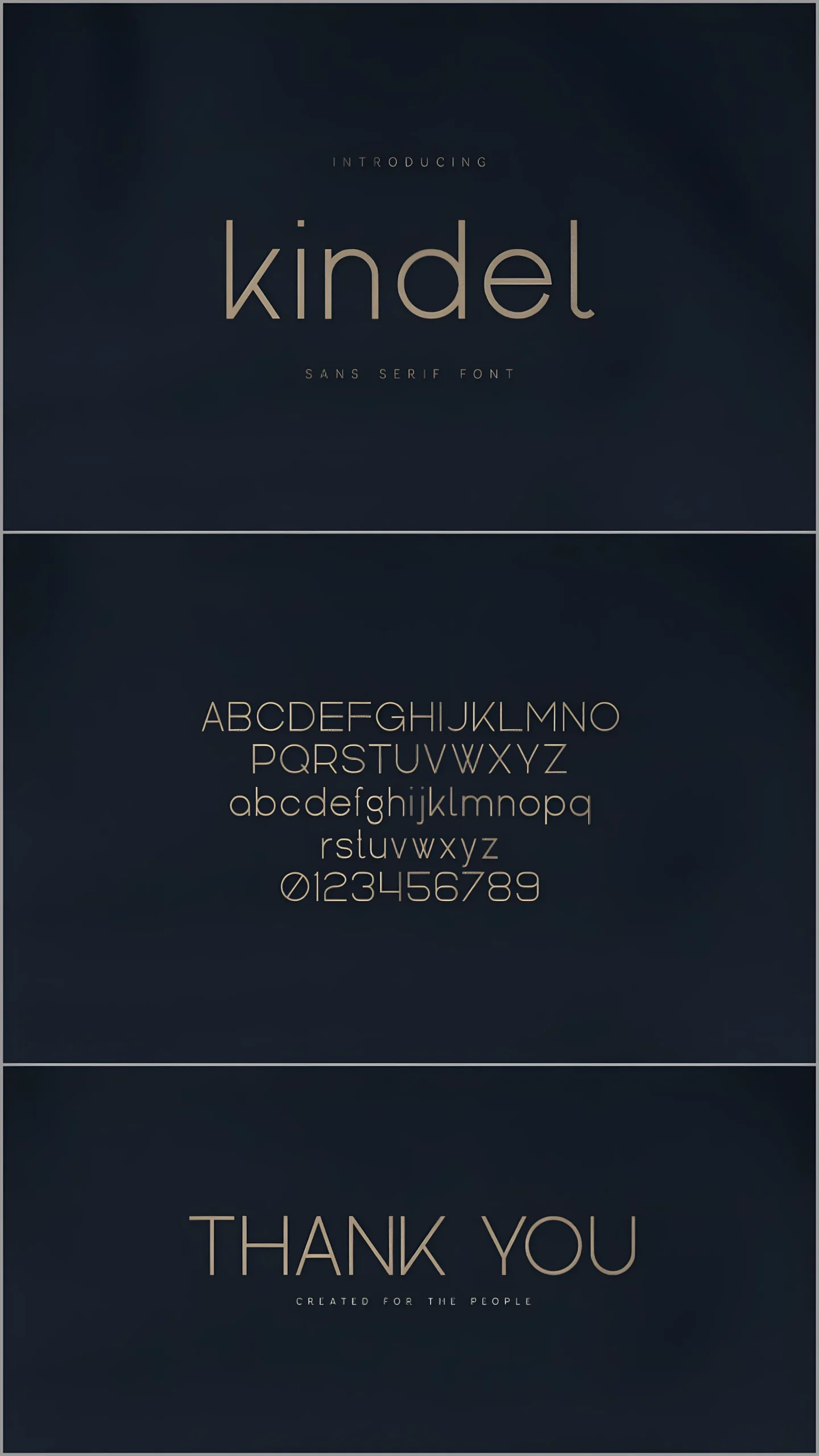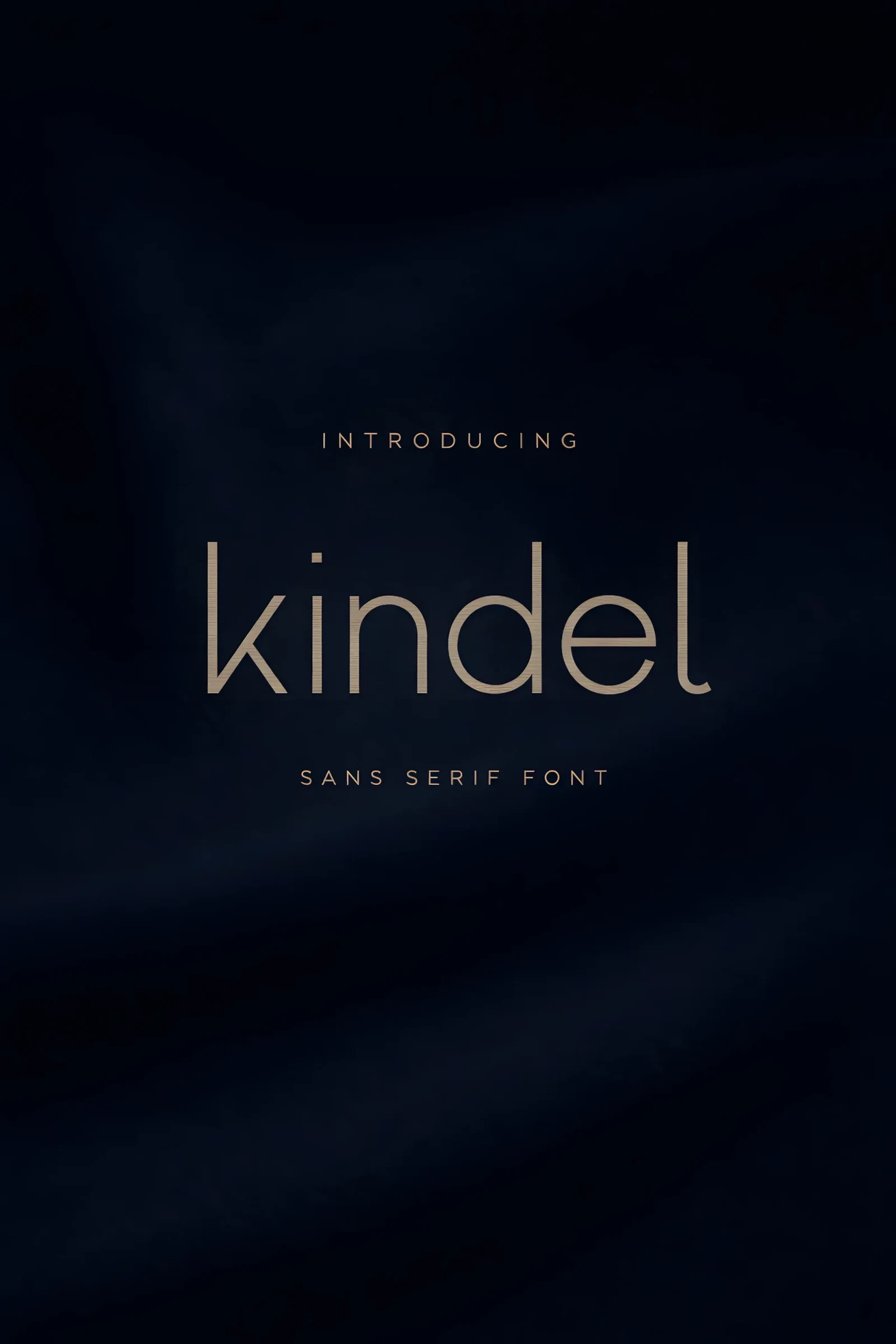
Some fonts feel loud and demanding. Kindel Font takes a different approach. It is a modern sans-serif typeface designed to feel warm, balanced, and refined while staying professional and contemporary. This combination makes Kindel especially suitable for brands and projects that want to appear thoughtful, approachable, and visually confident.
Kindel is not built to chase trends. It focuses on calm elegance, smooth geometry, and subtle contrast, allowing it to support content rather than compete with it.
A Typeface That Feels Human and Professional
Kindel stands out because of its softness. The curves are smooth, the proportions are carefully balanced, and the overall tone feels friendly without losing structure. This gives the font a human quality that works well in modern branding and lifestyle-focused projects.
At the same time, the design remains clean and controlled, which keeps it suitable for professional environments. It strikes a rare balance between warmth and precision.
This makes Kindel a strong choice for brands that want to feel modern but not cold.
Visual Character and Design Details
The letterforms in Kindel combine elegant geometry with gentle contrast. Strokes are refined rather than heavy, giving text a light, breathable feel. Spacing is consistent, helping words flow naturally across a layout.
Key visual qualities include:
- smooth, flowing curves
- refined sans-serif structure
- balanced proportions
- a calm, contemporary tone
The font performs well in both headlines and short blocks of text, maintaining clarity without looking rigid.
Where Kindel Works Best
Branding and Logo Design
Kindel is especially effective in branding projects that value aesthetics and clarity. It works well for:
- lifestyle brands
- creative studios
- technology and digital products
- wellness and modern retail brands
Its refined appearance helps logos and brand names feel intentional and premium without being overstated.
Editorial and Marketing Design
In editorial layouts, Kindel feels natural and readable. It fits well into:
- magazines and lookbooks
- marketing materials
- websites and landing pages
- modern advertising visuals
Text feels open and inviting, which is ideal for brands that want to connect emotionally with their audience.
Digital and Web Projects
Kindel performs reliably on screens. The smooth curves and balanced spacing maintain legibility across different resolutions and devices.
It can be used effectively for:
- website headings
- hero sections
- UI text elements
- digital branding assets
The font includes:
- uppercase and lowercase letters
- numbers and punctuation
- multilingual character support
This makes it suitable for international projects and long-term brand systems.
Because of its versatile and timeless style, the font remains useful across multiple projects instead of being limited to a single niche.
Why Elegant Sans-Serif Fonts Stay Relevant
Elegant sans-serif fonts continue to perform well because they adapt easily to changing design needs. Kindel succeeds by offering subtle personality without sacrificing usability.
It doesn’t rely on dramatic shapes or trends. Instead, it provides a stable visual foundation that designers can return to again and again.
Who Kindel Font Is Best For
Kindel is especially well suited for:
- branding and identity designers
- lifestyle and creative brands
- digital creators
- agencies and studios
- anyone seeking a modern yet warm sans-serif font
It works equally well for logos, editorial layouts, and digital design systems.
Final Perspective
Kindel Font is designed to feel calm, refined, and modern at the same time. Its elegant curves, balanced structure, and professional tone make it a dependable choice for contemporary branding and visual communication.
For designers looking for a sans-serif typeface that blends warmth with clarity and sophistication, Kindel offers a versatile solution that remains relevant long after design trends change.